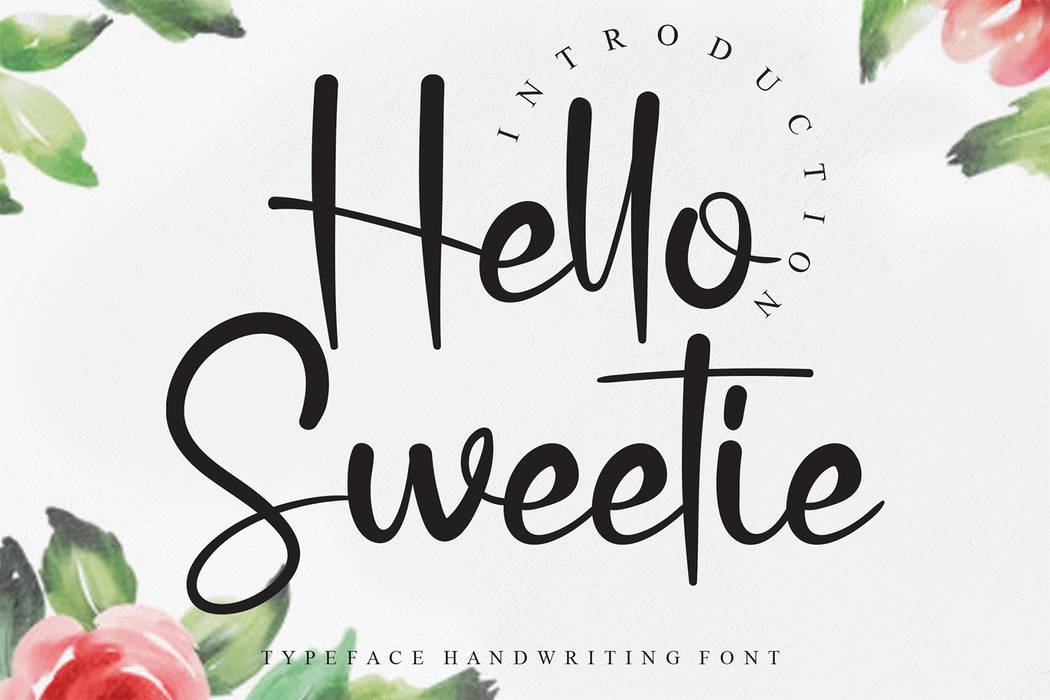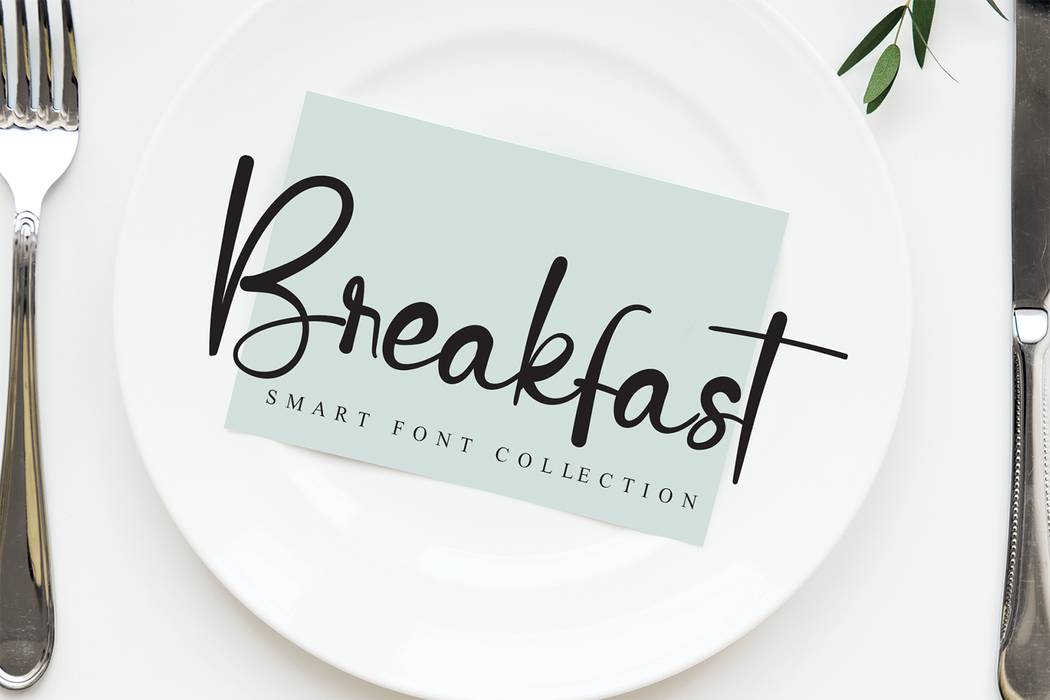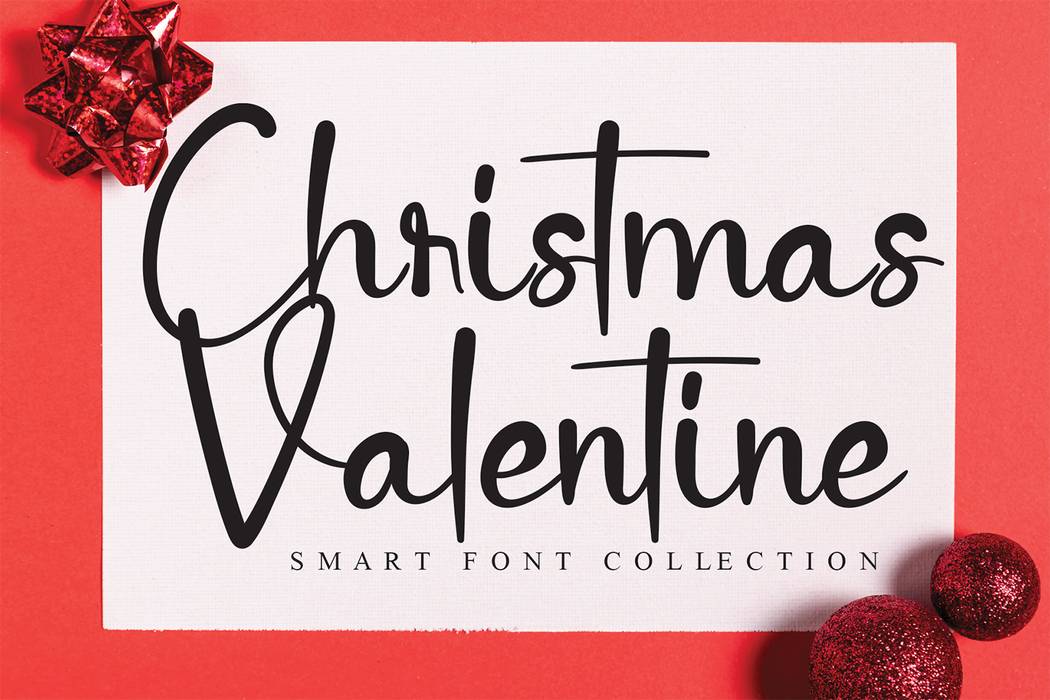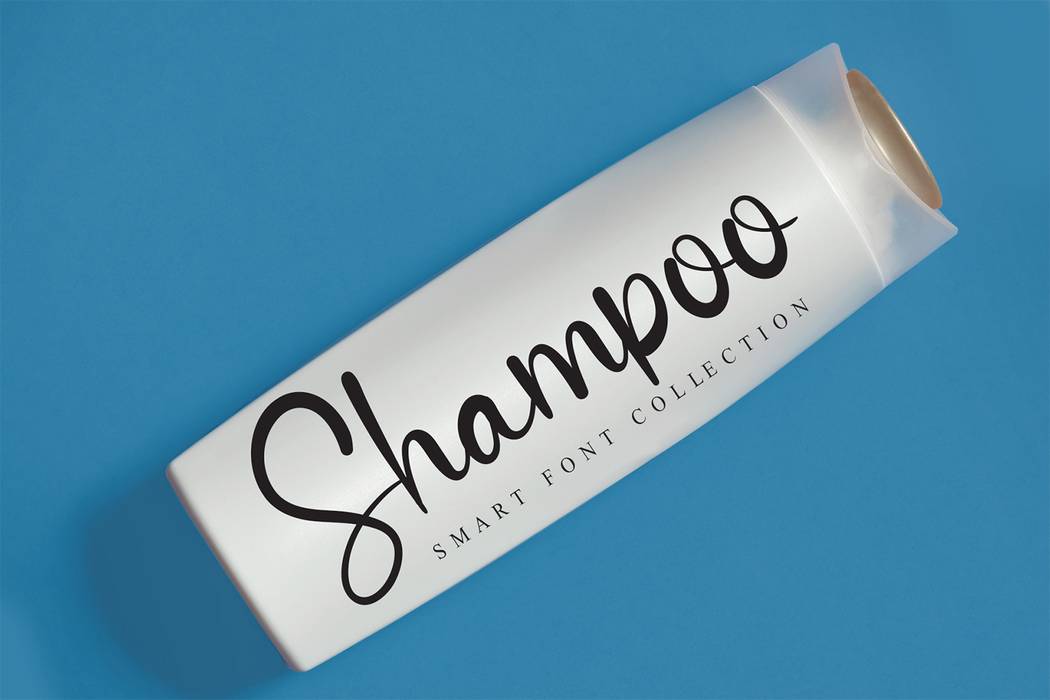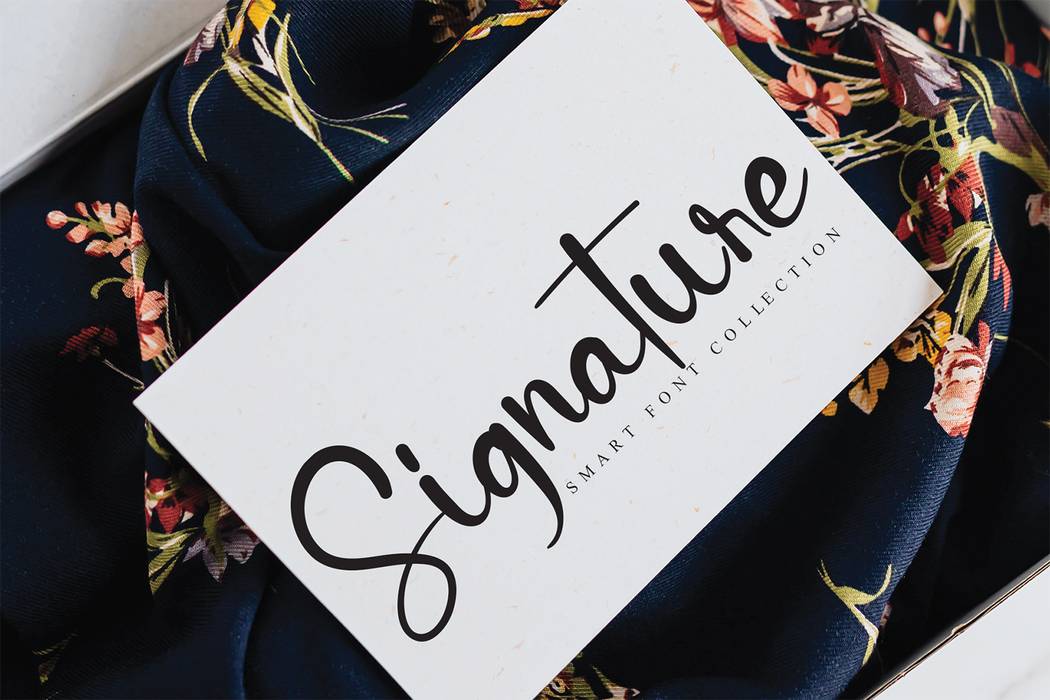
Hello Sweetie is a charming handwritten script font with a playful and casual vibe, featuring tall, narrow letterforms and a smooth, flowing stroke style. It combines both uppercase and lowercase letters with whimsical, slightly irregular shapes that give it a friendly, approachable personality. This font works great for invitations, branding, and creative projects that want to evoke warmth, creativity, and a personal touch.
Hello Sweetie Font
About Hello Sweetie Font